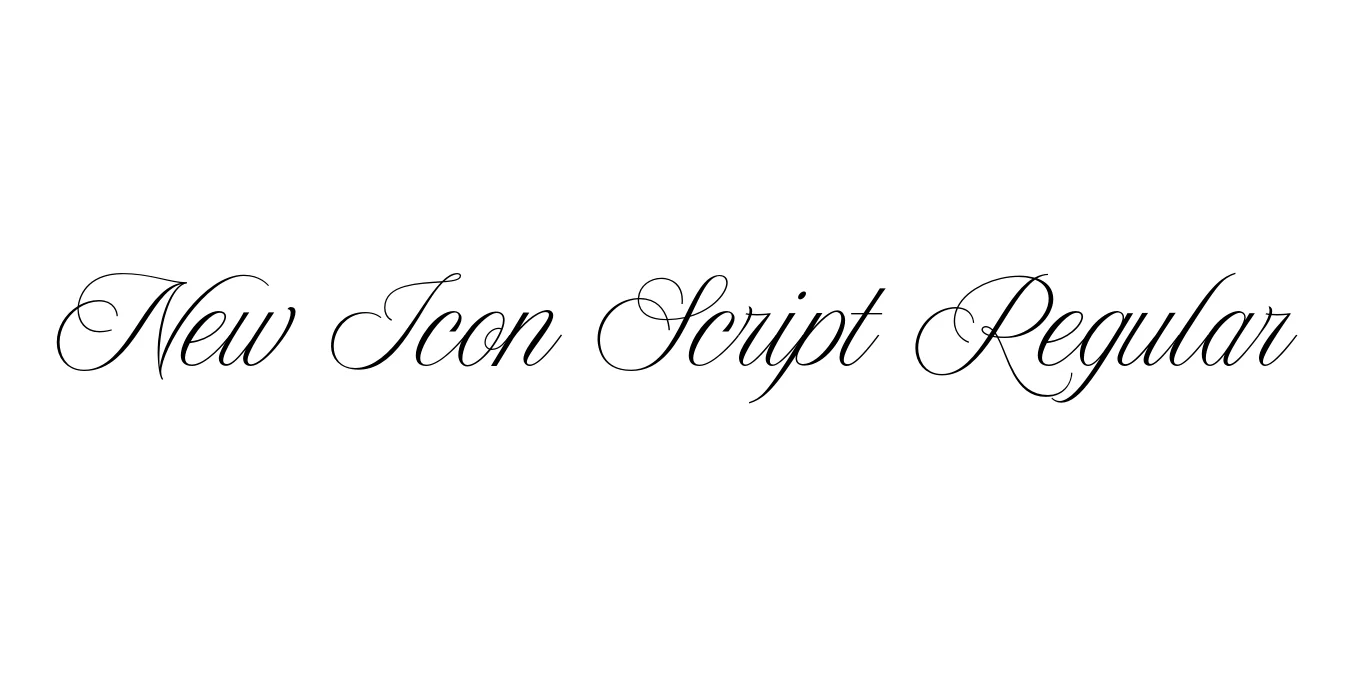
New Icon Script Regular
Designed by Lettersiro
New Icon Script Regular is a sophisticated calligraphic typeface that bridges the gap between traditional penmanship and modern digital design. Created by the talented team at Lettersiro, this font is characterized by its fluid, rhythmic strokes and elegant ligatures that mimic the natural flow of hand-written ink. It was designed to provide a sense of luxury and artisanal craftsmanship, making it a standout choice for high-end creative projects that require a personal touch.
The font's architecture is built on a foundation of balanced proportions and delicate swashes, ensuring that it remains highly legible even at smaller sizes. Since its introduction to the typography market, it has become a favorite among designers for its versatility in branding and editorial design. Its extensive character set and smooth curves allow for seamless integration into various layouts, providing a graceful aesthetic that elevates the visual impact of any message it conveys.
New Icon Script Regular Best Uses
Ideal for crafting elegant invitations, save-the-date cards, and seating charts.
Perfect for creating sophisticated logos and high-end business card designs.
Excellent for aesthetic Instagram quotes and feminine lifestyle content.
Adds a premium feel to labels for cosmetics, perfumes, and artisanal goods.